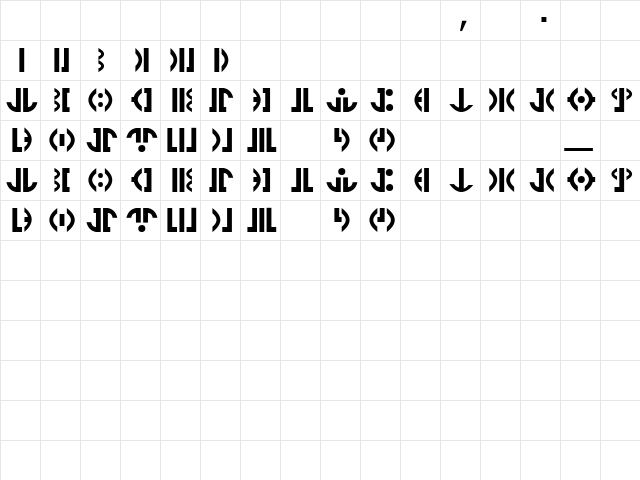
Trade Federation ՕՕՕ
Design Context for Trade Federation Typeface
Trade Federation is a composed and adaptable typeface that performs quietly and consistently across a wide range of design contexts.